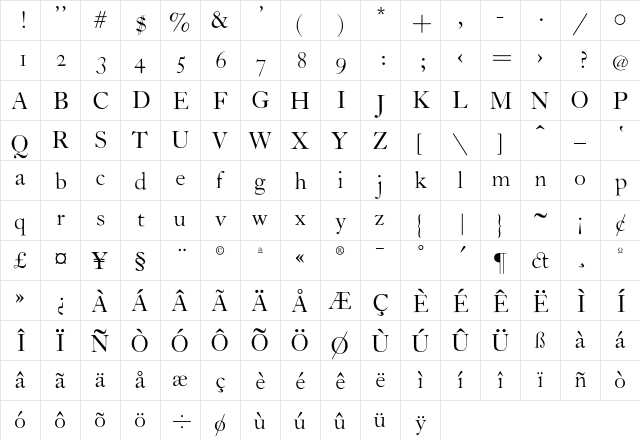
CaslonH Regular
Design Context for CaslonH Typeface
CaslonH offers clean, dependable letterforms without strong stylistic allegiance, making it a practical choice for designers who need flexibility.